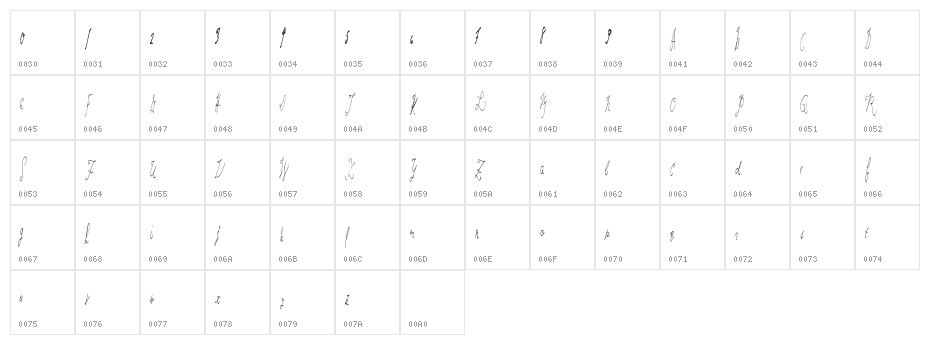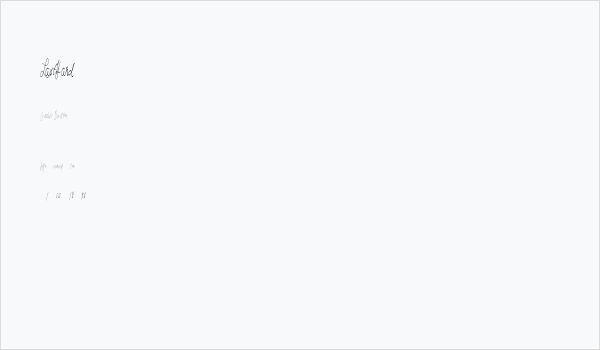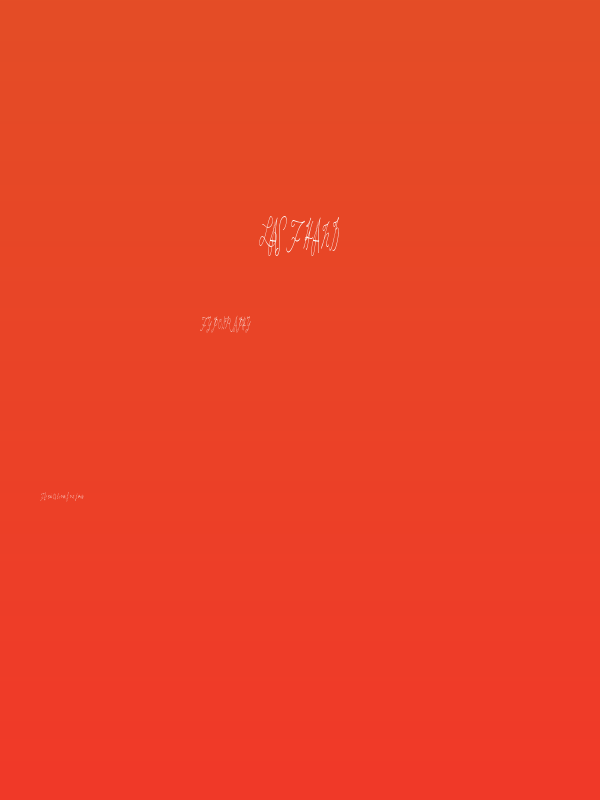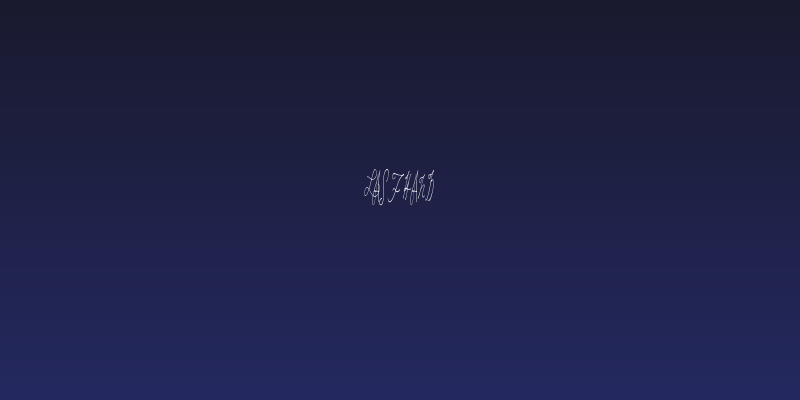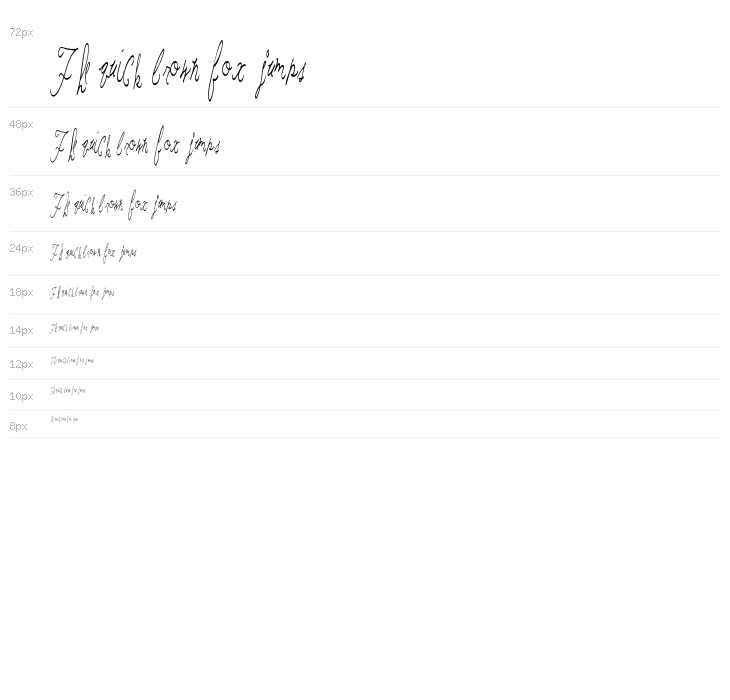
LastHand Font
LastHand Description
This font features a distinctive handwritten style with an elegant and flowing script. The uppercase letters are tall and slender, with intricate loops and swirls that give them a sophisticated appearance. The lowercase letters maintain a consistent style, with smooth curves and a slightly condensed form. The numerals are bold and slightly more structured, providing a nice contrast to the delicate letters. The special characters blend seamlessly with the overall design, maintaining the same fluidity and grace. This font is perfect for projects that require a personal touch or an artistic flair.
| Width | Condensed |
| Use Case | Logos, Invitations, Artistic projects |
| Proposed Projects | Ideal for wedding invitations, greeting cards, personal branding, and artistic projects. |